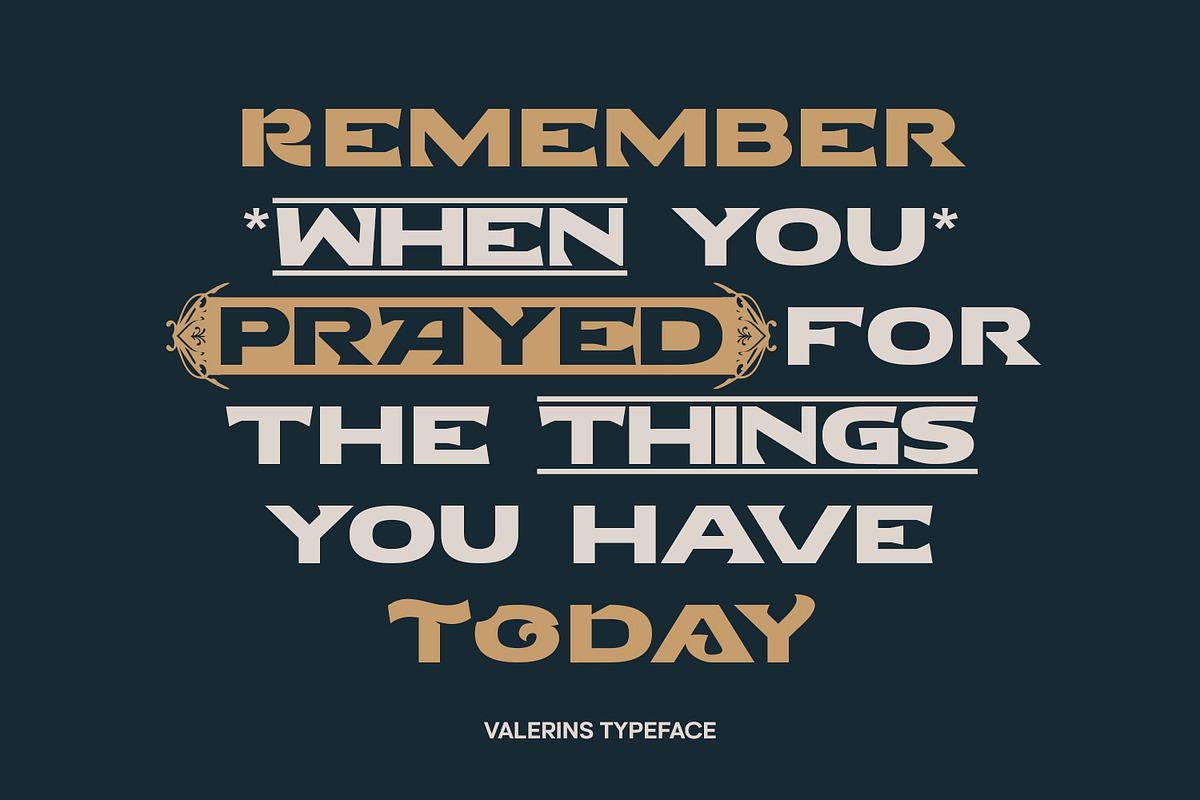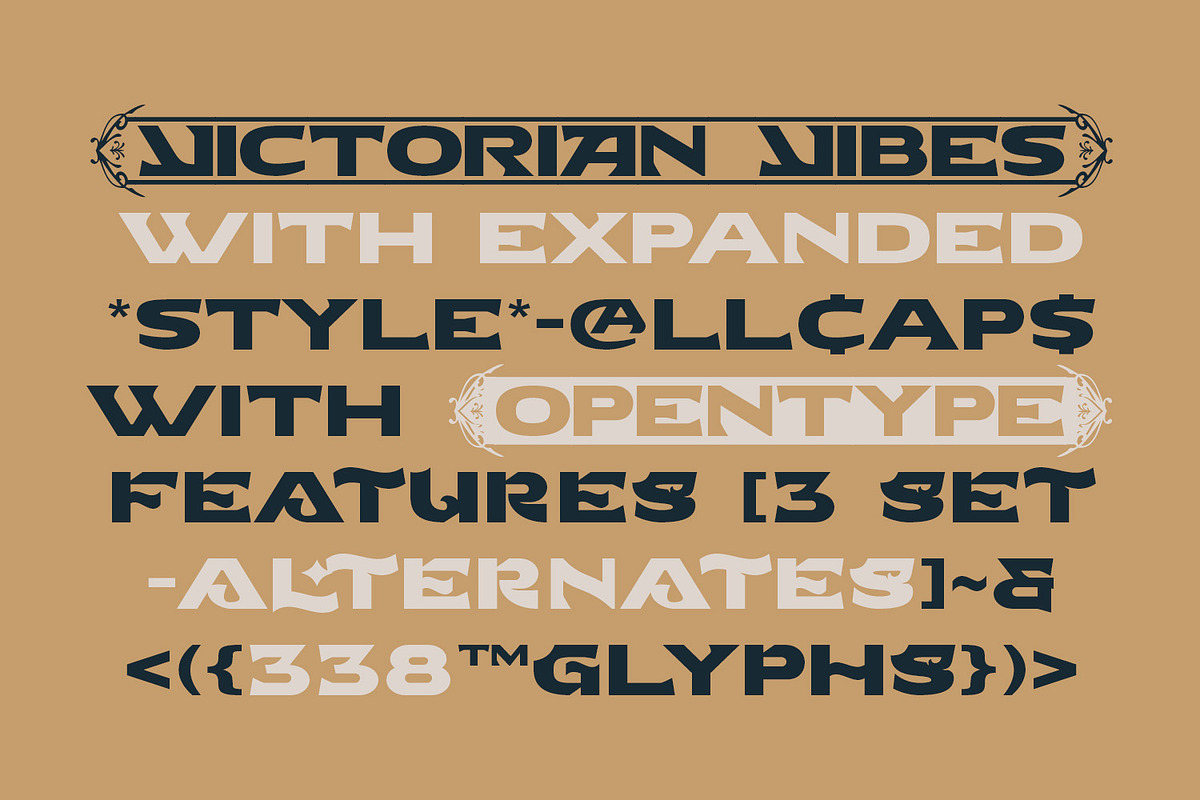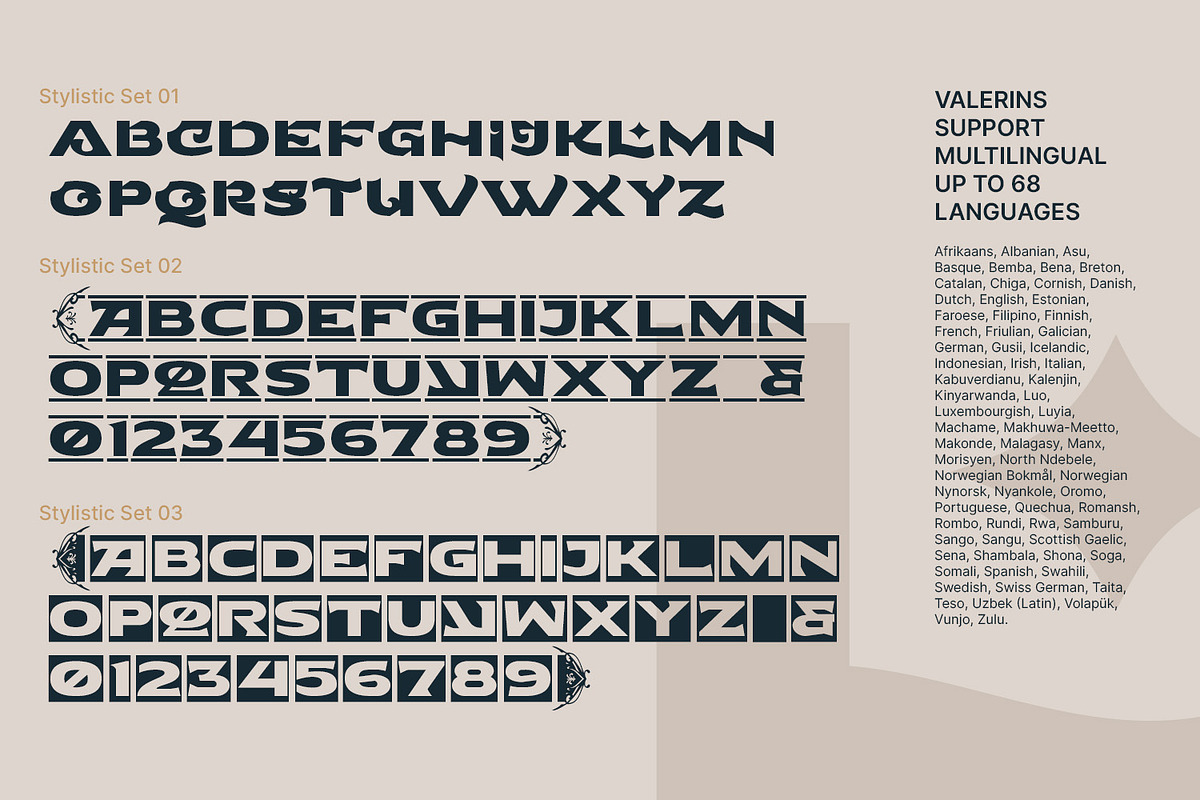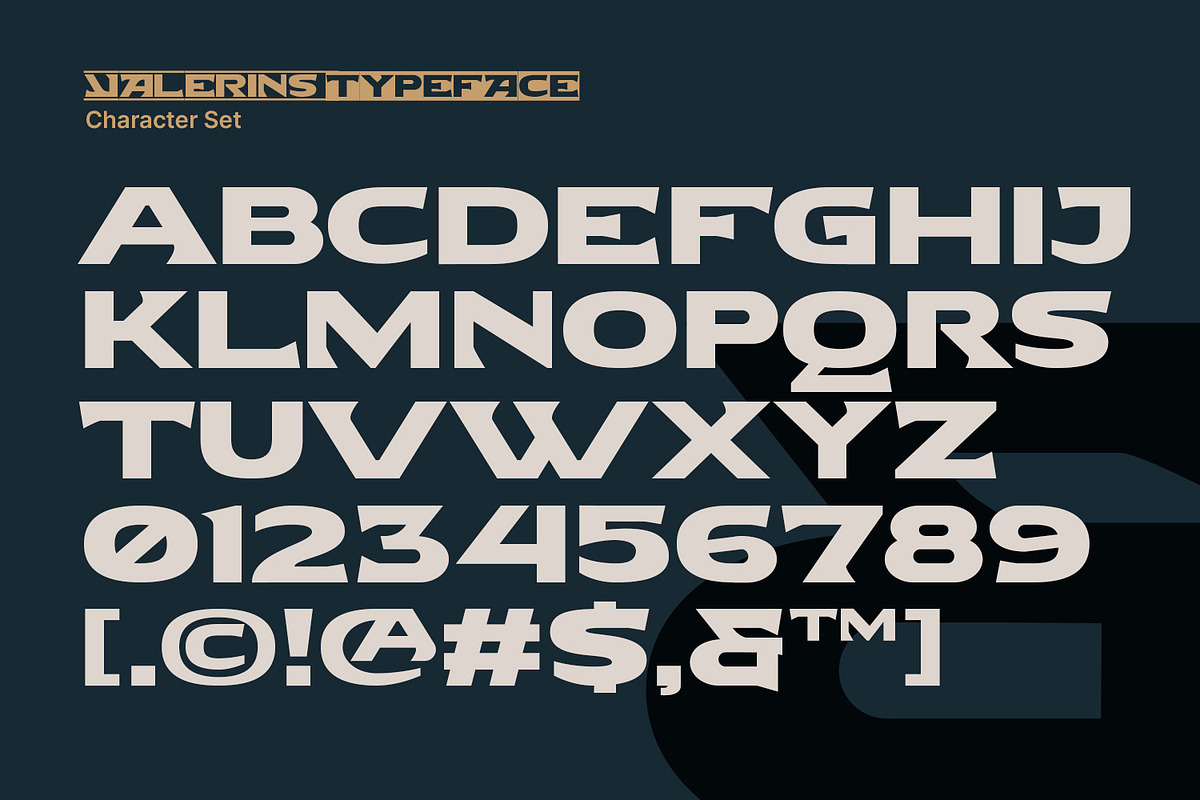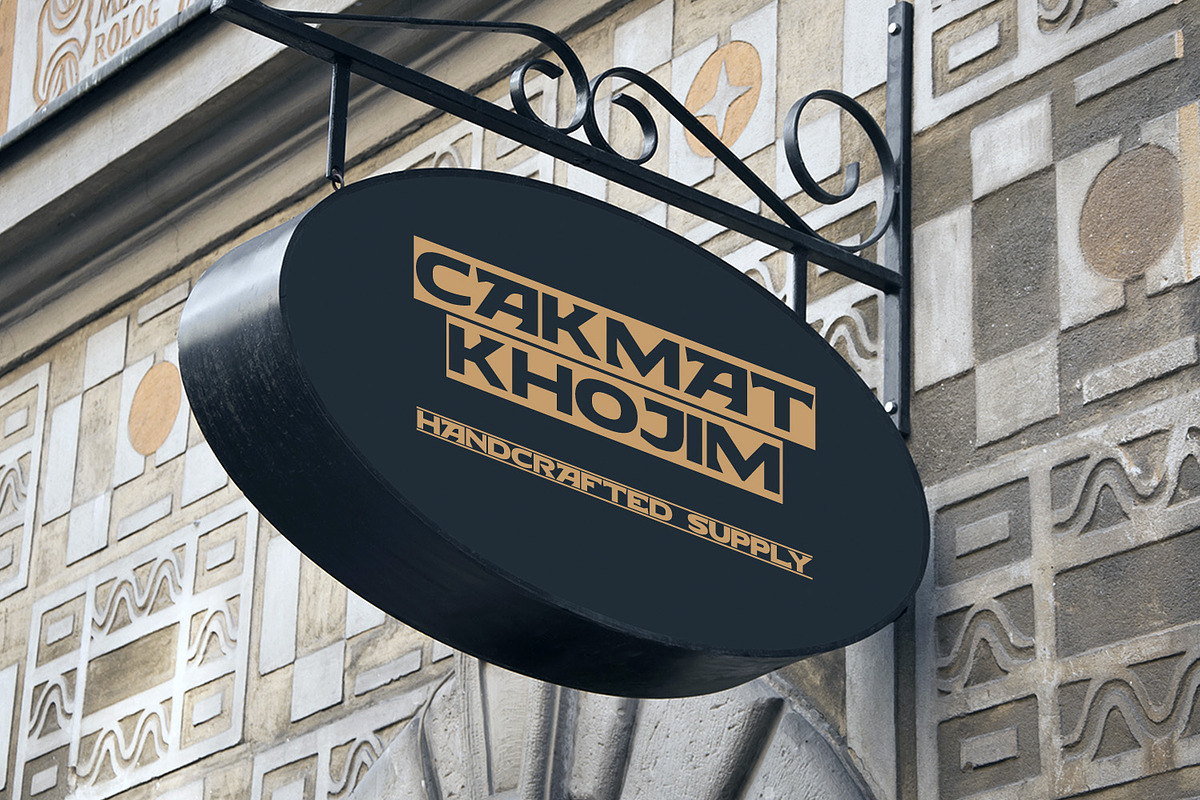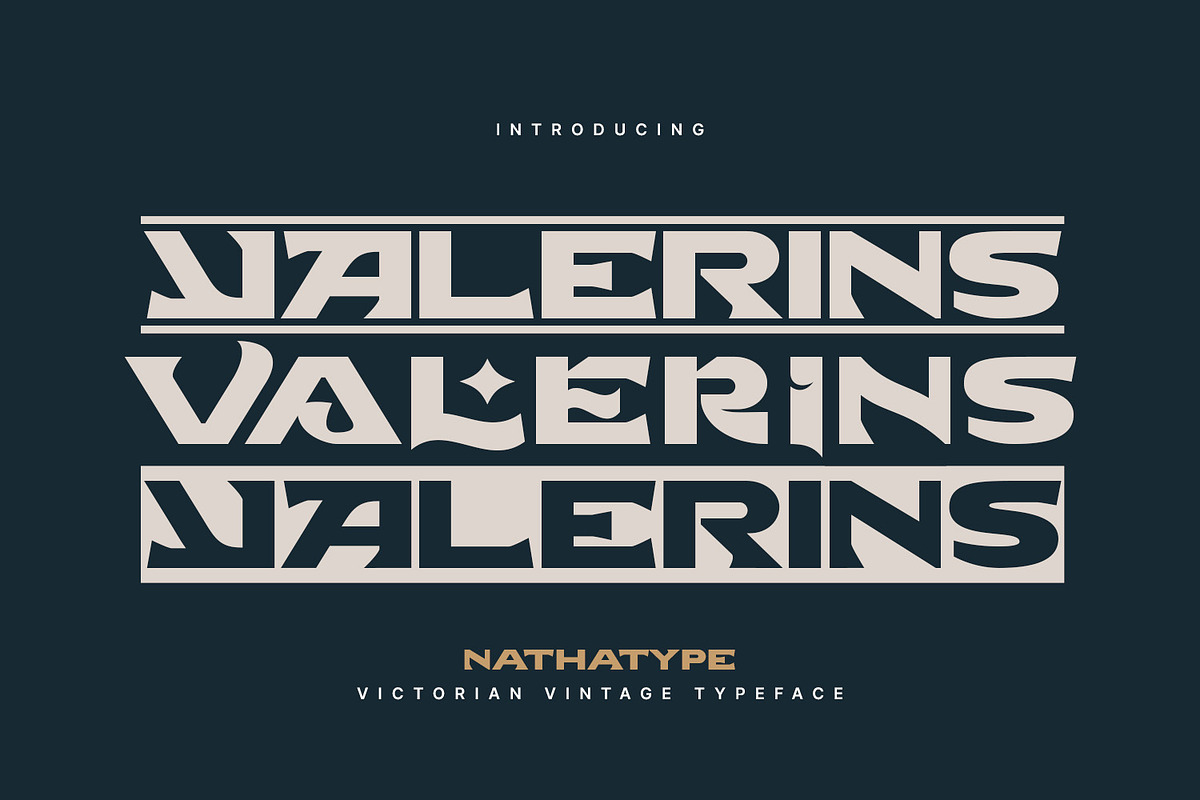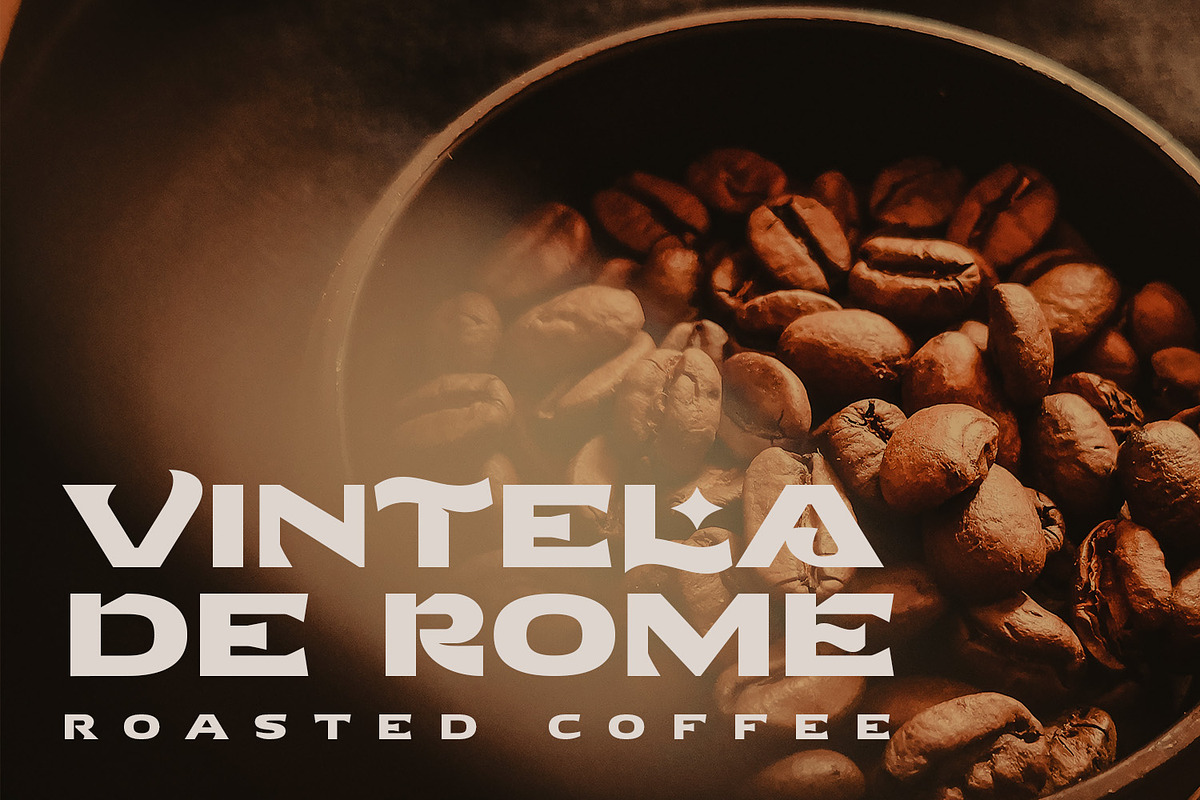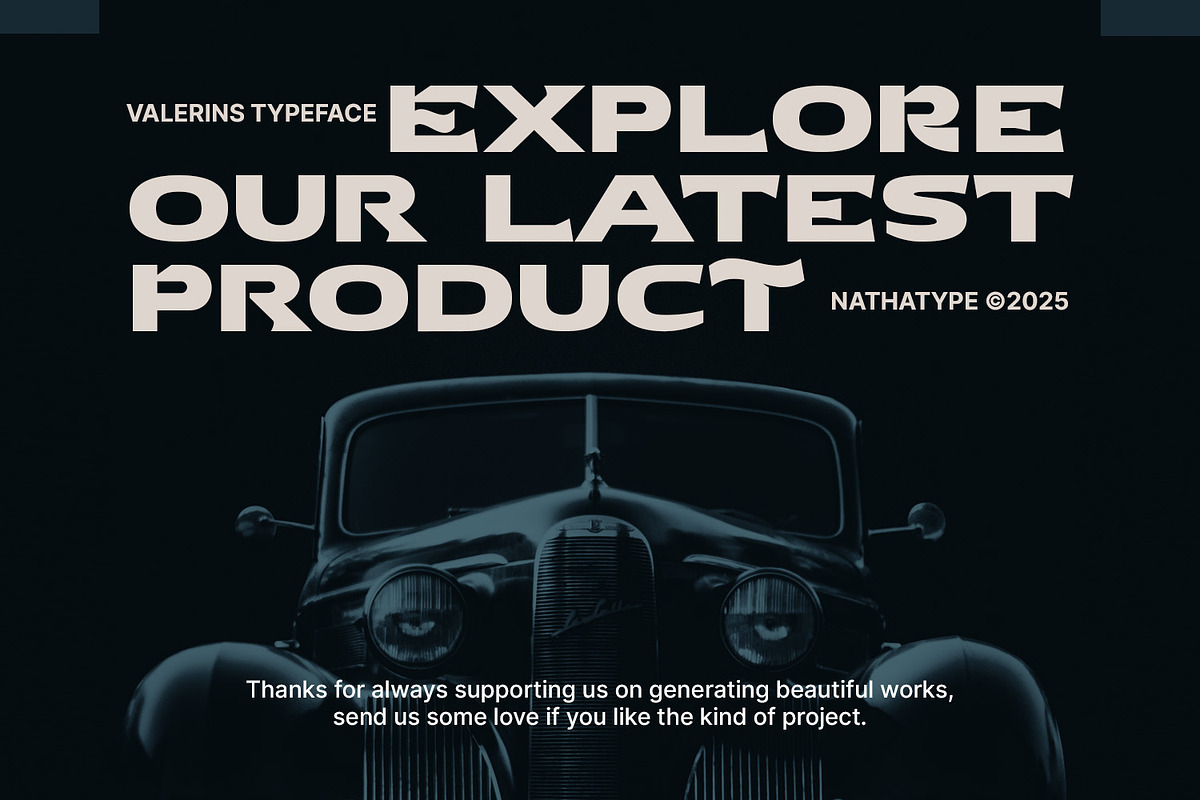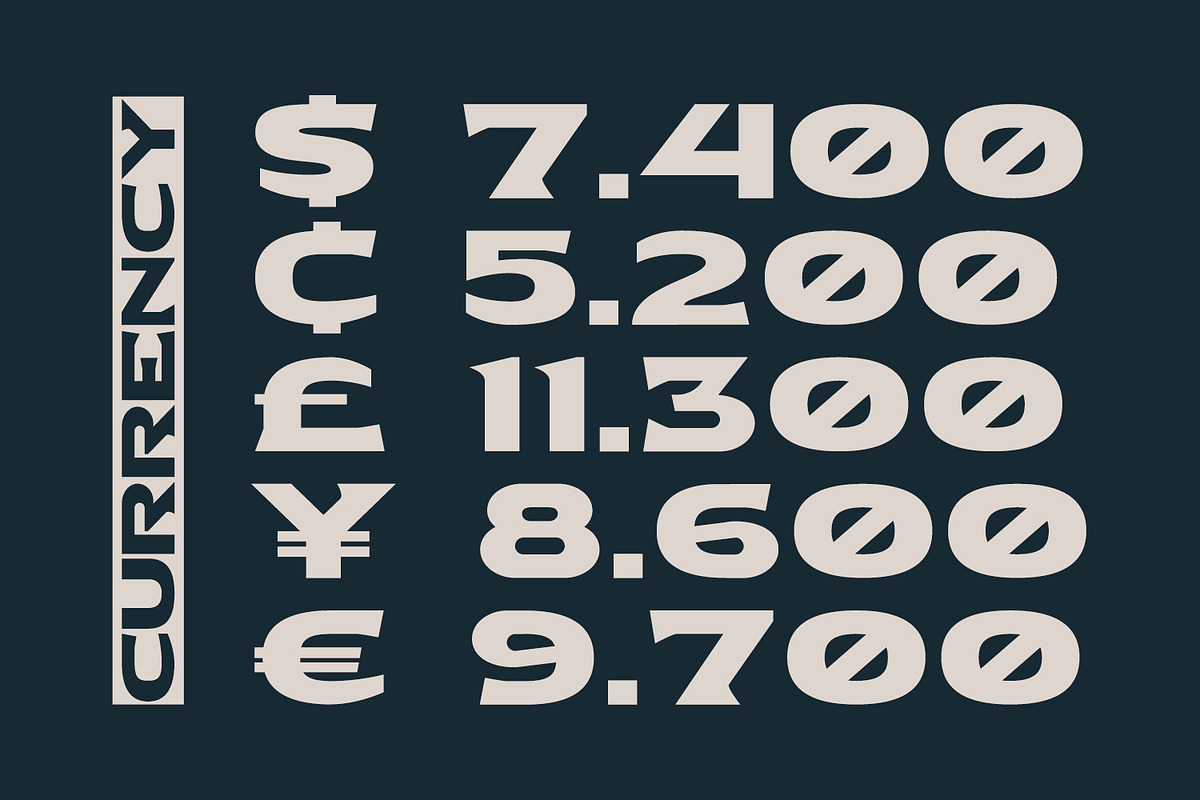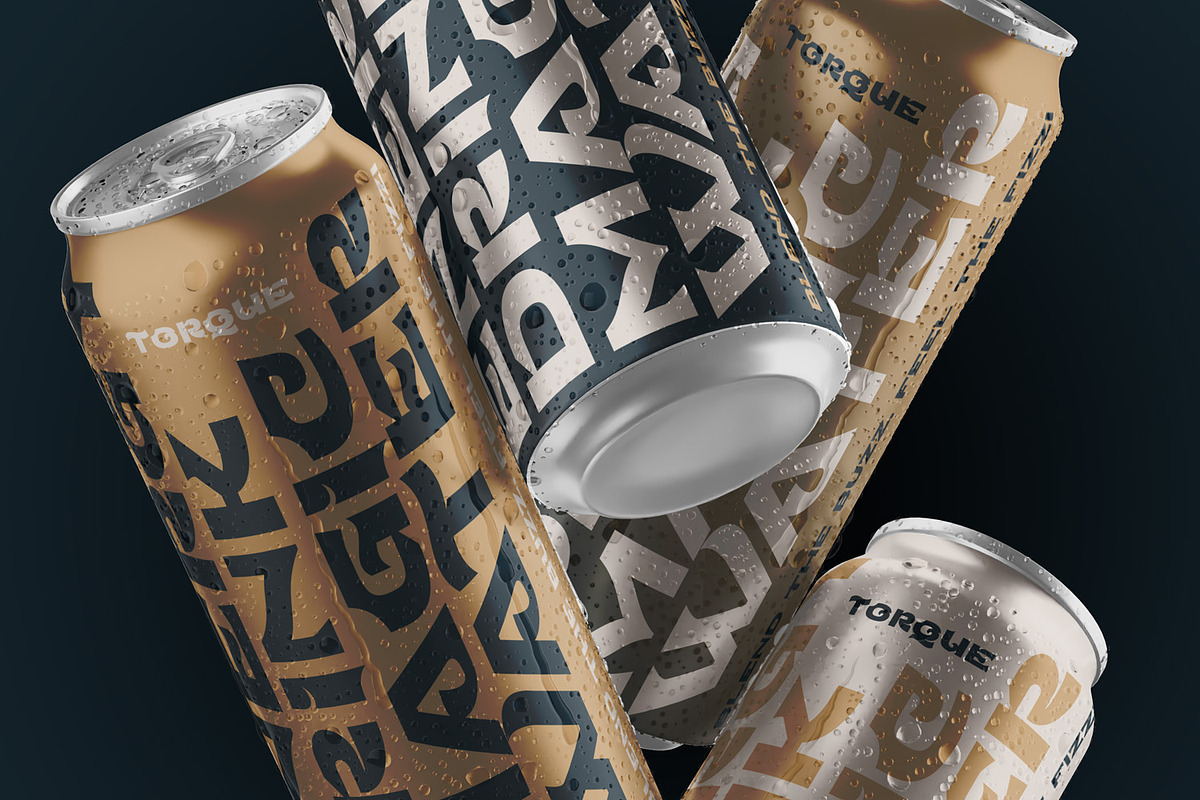
Valerins
Valerins is a bold, uppercases vintage font that draws inspiration from the ornate beauty of Victorian typography. Designed with wide letterforms and a strong weight, it conveys both grandeur and authority while keeping an elegant decorative touch. Valerins captures the timeless charm of classic Victorian design with a bold presence that commands attention. In addition, enjoy the features here.
- Stylistic Sets
Valerins fits in branding, packaging, logos, posters, headlines, and many more designs. Find out more ways to use this font by taking a look at the font preview.